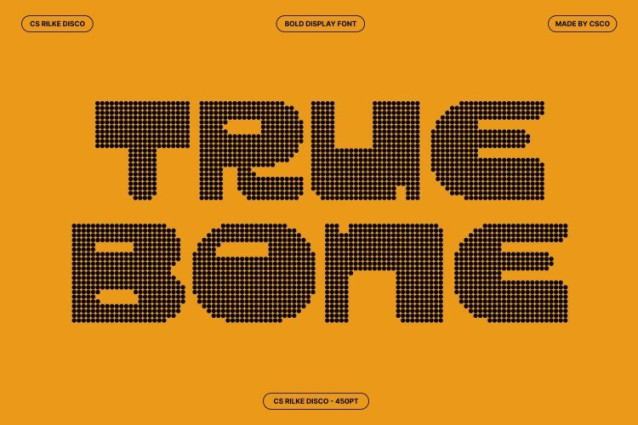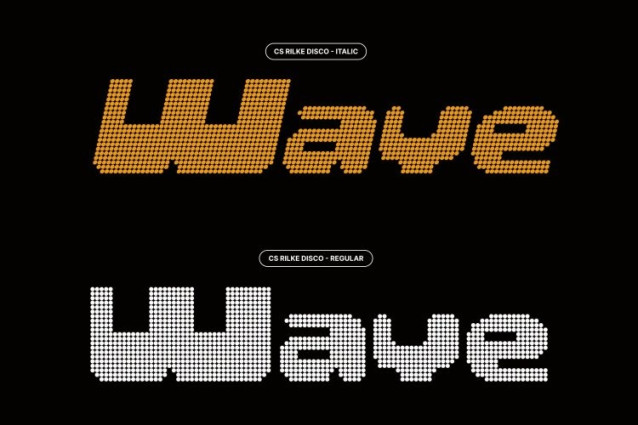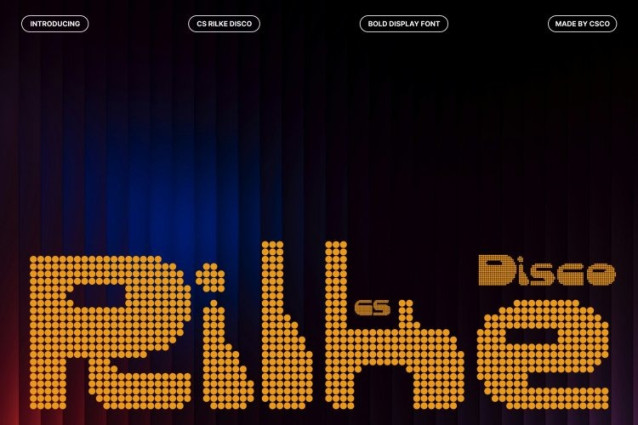
CS Rilke Disco Font
CS Rilke Disco Font – This font reimagines the bold futuristic display font in a vibrant dotted style inspired by the dazzling lights of the disco era. Built from small circular dots, each letter reflects the glow of digital displays and dance-floor lighting. This dotted structure amplifies the energetic personality of the typeface while preserving its strong futuristic identity.
Bold Geometric Form with Rhythmic Dots
The original geometric construction remains at the core of the design, with strong blocky shapes that create a powerful and confident presence. The dotted treatment introduces rhythm and movement, transforming the solid forms into a lively pattern that feels dynamic and visually engaging. This combination keeps the font bold while adding a playful, celebratory texture.
Digital Edge with Retro Party Atmosphere
Blending Y2K-inspired futurism with disco-style dot detailing, this font creates a unique fusion of retro and futuristic aesthetics. The dots evoke LED lights, digital pixels, and shimmering dance-floor reflections, making the typography feel both technological and festive at the same time.
Perfect for Posters, Games, and Creative Branding
This is ideal for posters, music visuals, gaming graphics, tech branding, and event promotions. Its bold structure ensures strong visibility, while the dotted design adds personality and excitement to modern layouts.